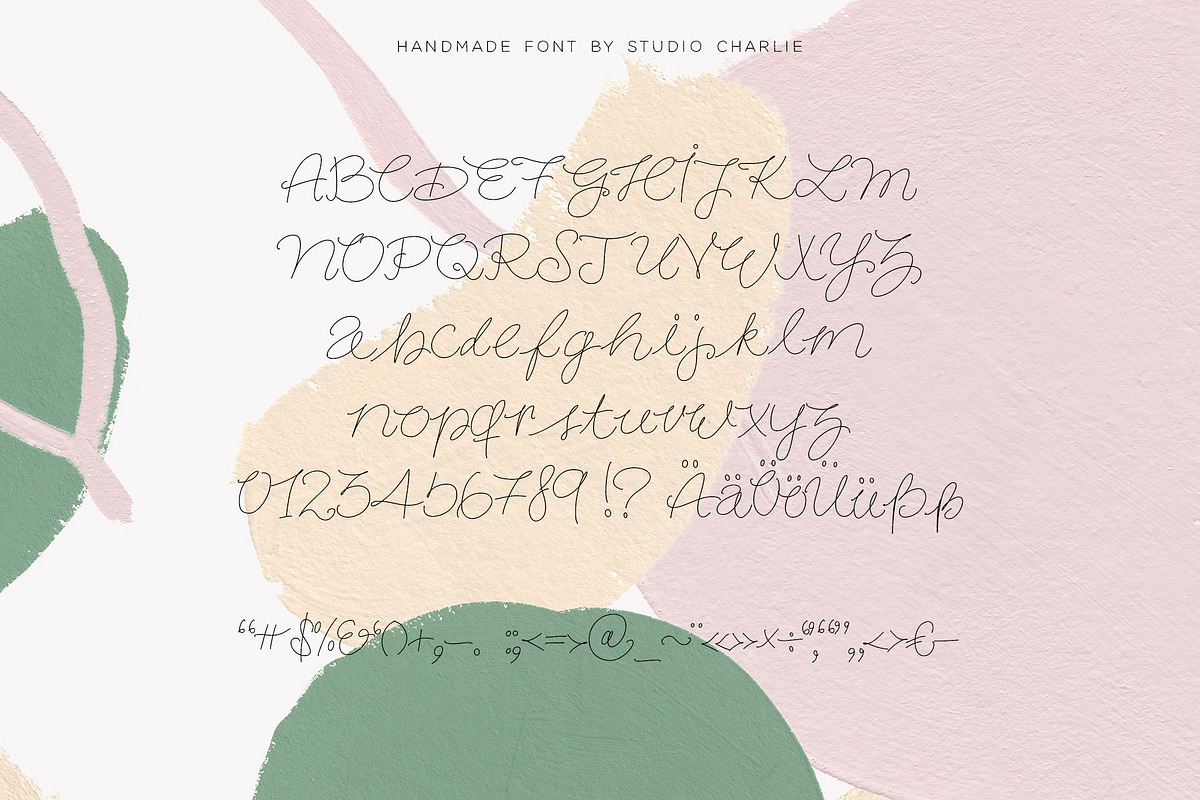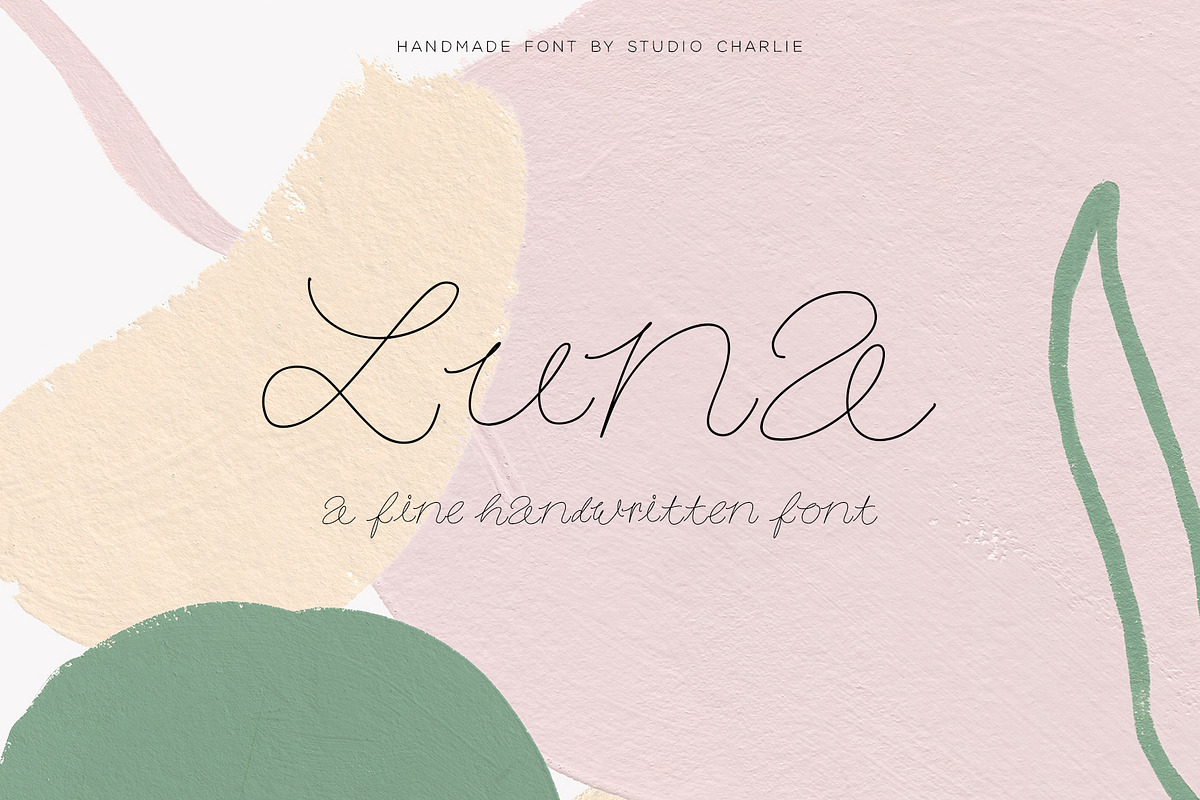
Luna - A fine Font Script
Luna is a fine handwritten font script that supports English and German characters. The OTF font file comes with a full alphabet of both lower- and uppcase letters as well as numbers and punctuation. Some extra glyphs have been added for fun writing.
The Luna font is made of our own handwriting from when we were kids at school learning how to properly write.